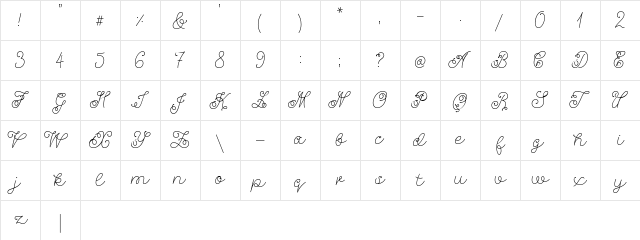
Hawaii Beach Regular
| Foundry | Bela Bolovits and Roland Huse |
| Designer | Bela Bolovits and Roland Huse |
Design Context for Hawaii Beach Typeface
Hawaii Beach is a composed and adaptable typeface that performs quietly and consistently across a wide range of design contexts.
Pro Tip: Use Hawaii Beach in both headline and body roles to test its range before committing to a single application.